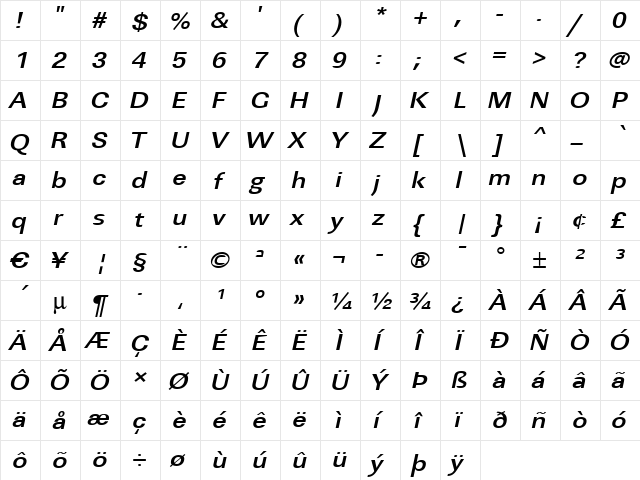
JeffBeckerExtended Bold Italic Font Preview
Design Context for JeffBeckerExtended Typeface
JeffBeckerExtended takes a measured approach to typography — its balanced proportions and neutral character make it a reliable workhorse for both digital and print work. The dynamic lean of this cut emphasises speed and emphasis in any layout. The heavy weight commands attention and anchors typographic hierarchies.
Pro Tip: Use JeffBeckerExtended for emphasis, pull quotes, and subheadings where its slanted energy can add rhythm to the layout.